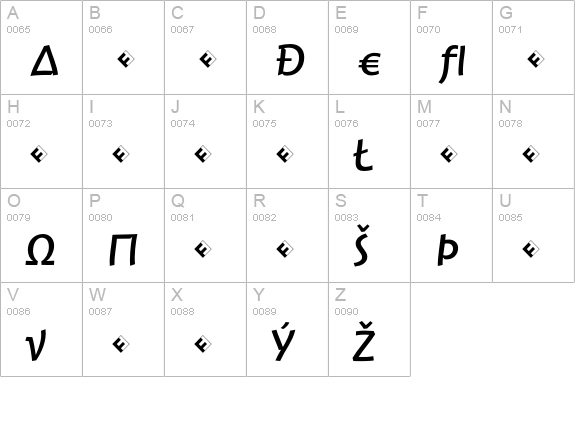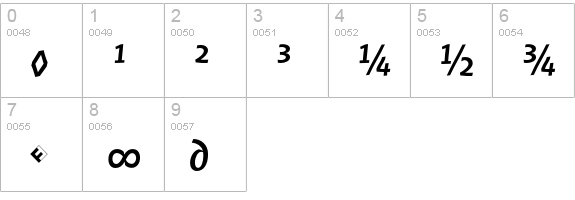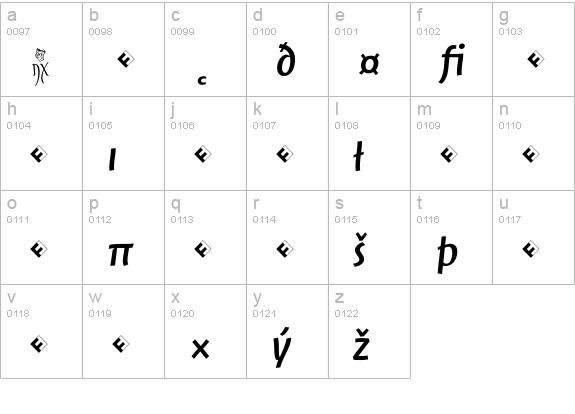
Jambono-RegularExpert is a modern and elegant font that exudes sophistication and professionalism. This font is perfect for any design project that requires a touch of class and refinement. With its clean lines and balanced proportions, Jambono-RegularExpert is sure to make a lasting impression. One of the best things about Jambono-RegularExpert is that it is completely free to use. Whether you are a professional designer or a hobbyist, you can freely download this font at FontsMarket.com. This means that you can add a touch of elegance to your work without breaking the bank. The versatility of Jambono-RegularExpert is another reason why it is a must-have font. It is suitable for a wide range of design projects, including logos, branding materials, invitations, posters, and more. Its timeless appeal ensures that it will never go out of style, making it a valuable addition to any designer's toolkit. The attention to detail in Jambono-RegularExpert is truly remarkable. Every curve and line has been carefully crafted to create a harmonious and visually pleasing typeface. The result is a font that is not only beautiful to look at but also easy to read, even at small sizes. Whether you are designing for print or digital media, Jambono-RegularExpert delivers exceptional legibility and readability. Its clear and well-defined letterforms ensure that your message will be effortlessly communicated to your audience. This font truly embodies the perfect combination of form and function. In conclusion, Jambono-RegularExpert is a free font that offers a touch of elegance and sophistication to any design project. Its versatility and attention to detail make it a valuable asset for both professional designers and amateurs alike. You can freely download Jambono-RegularExpert at FontsMarket.com and elevate your designs to new heights.